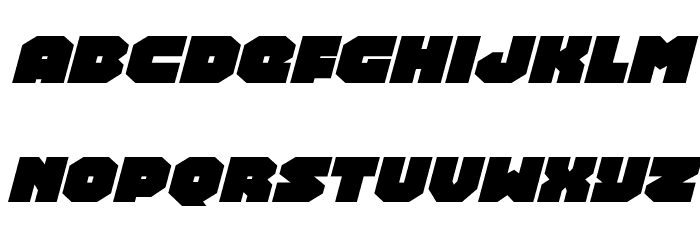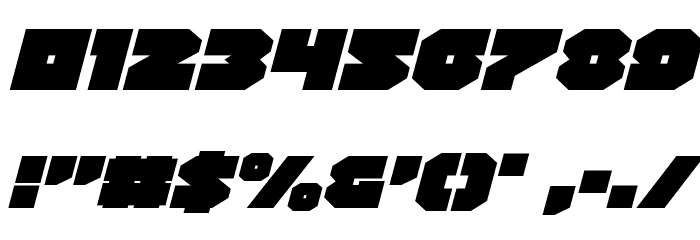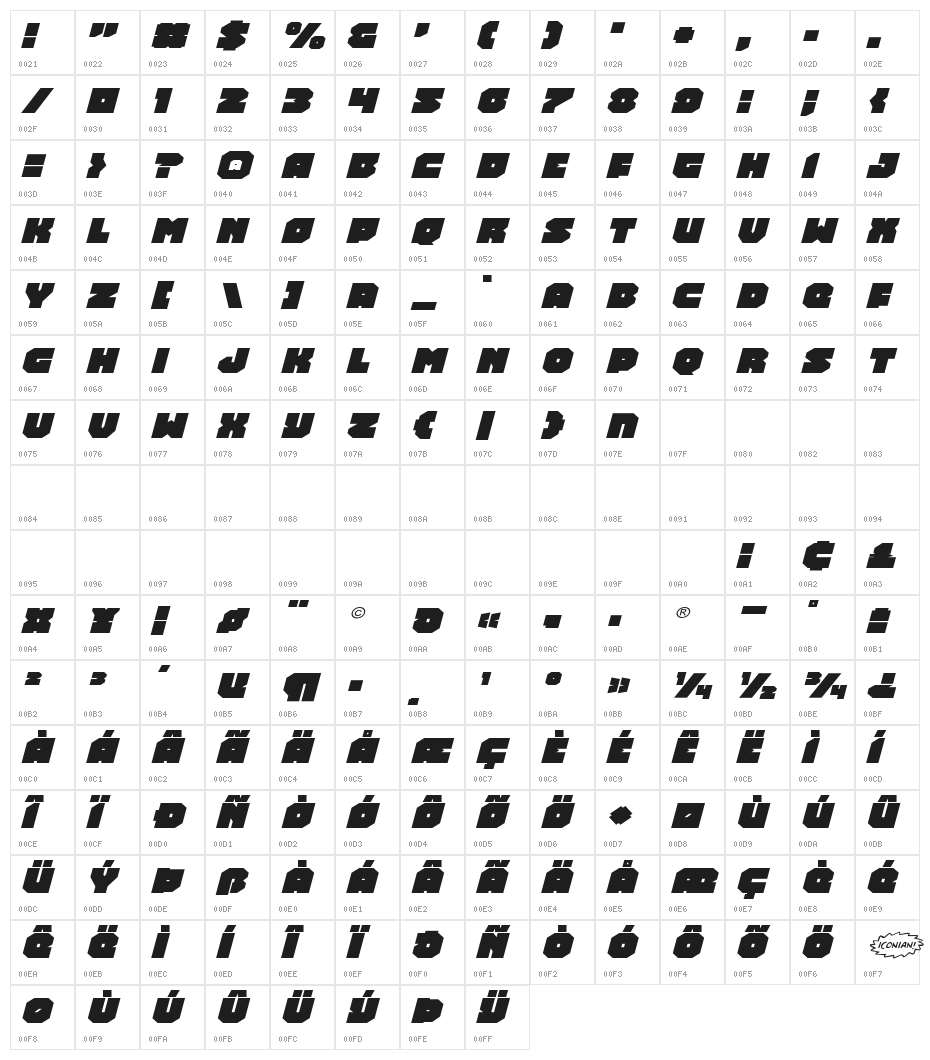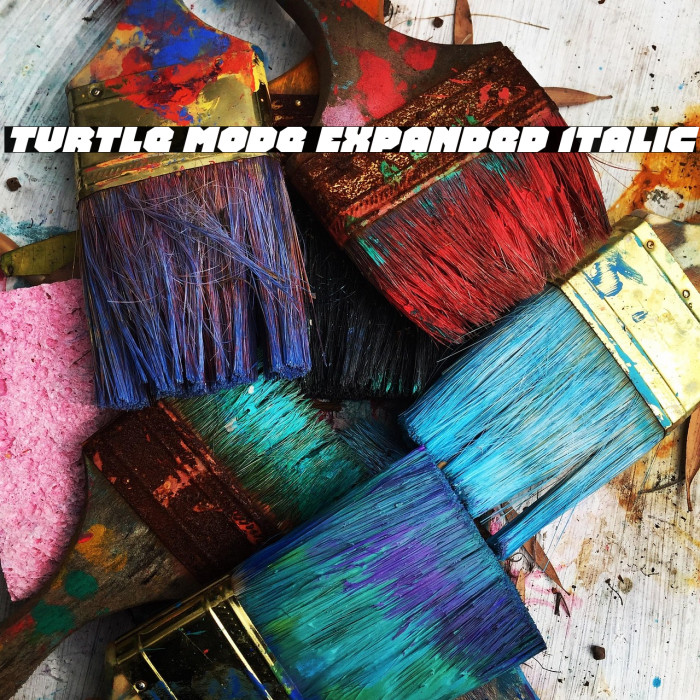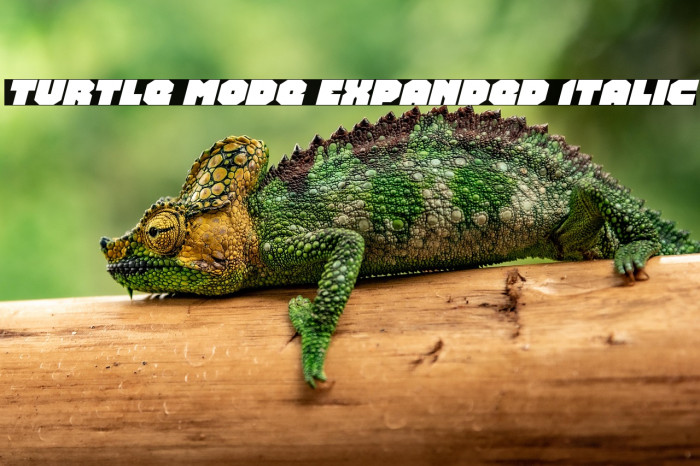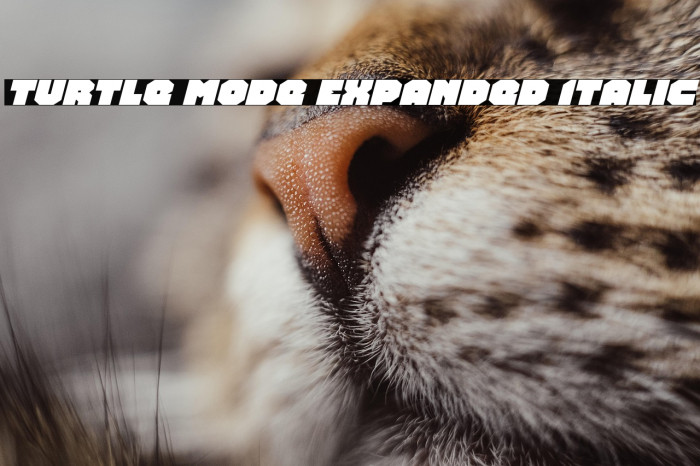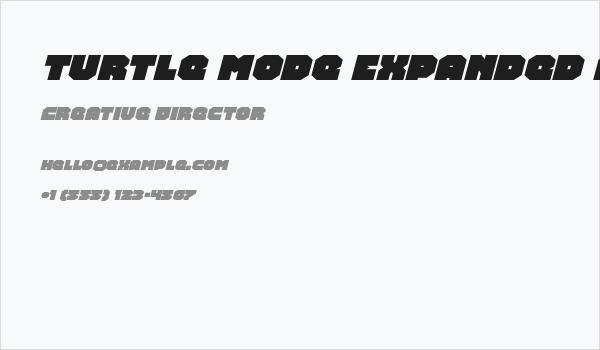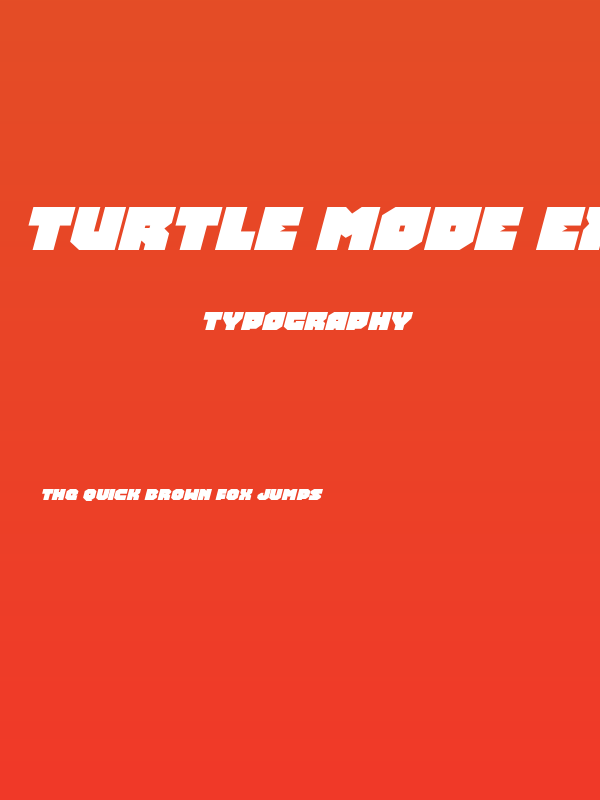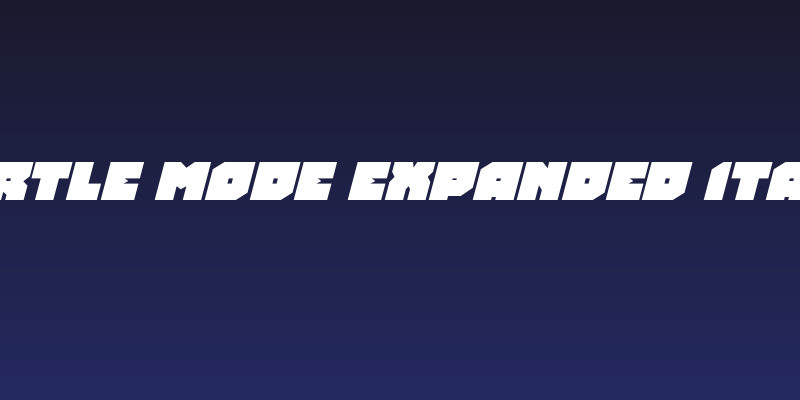
Turtle Mode Expanded Italic Font
This font features a bold and expanded style with a distinctly modern and geometric appearance. The characters are italicized, giving them a dynamic and forward-leaning posture. Each letter and number is crafted with sharp, angular edges and a blocky structure, contributing to a futuristic and industrial aesthetic. The font maintains a consistent stroke thickness throughout, ensuring a uniform look across all characters. Special characters are designed to match the bold and angular style, making them cohesive with the rest of the set. The expanded width of the characters allows for a strong visual impact, making it suitable for attention-grabbing designs.
A bold, expanded, and italicized geometric font with a modern, industrial look.
- Proposed Projects: Ideal for use in futuristic branding, technology-related projects, video game titles, and bold poster designs.